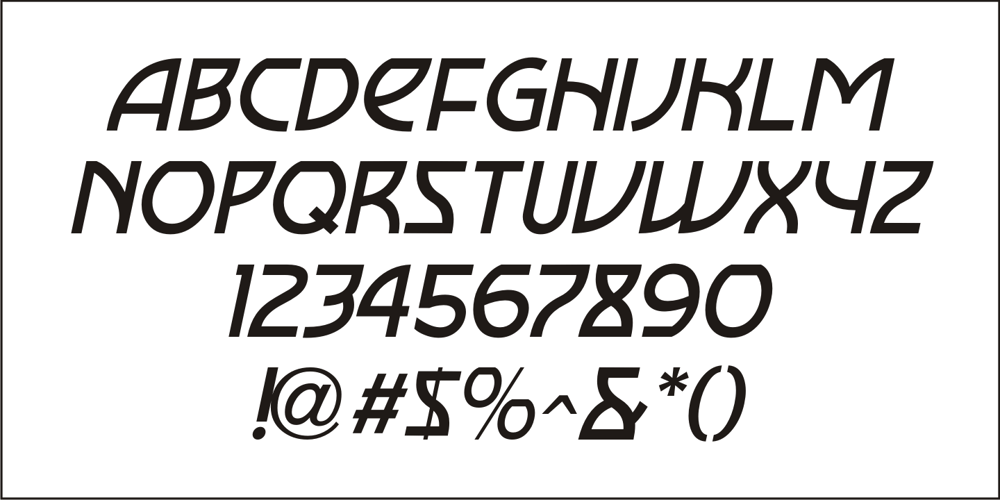
Retail Packaging JNL Font Family was designed by Jeff Levine and published by Jeff Levine. Retail Packaging JNL contains 2 styles and family package options. The retail storage box for a vintage metal numbering stamp manufactured by the American Numbering Machine Company had its brand name hand lettered in an Art Nouveau style that most likely went back to the 1920s, as the company was in existence from 1908 to around 1971. Numbering machines were used in offices, schools, libraries, and anywhere a series of numbers needed to be marked onto printed items. Similar to what was called a ‘crash numberer’ used in letterpress shops, the machines could be set to do a run of digits [for example: 4000, 4001, 4002] or repeat numbers for forms used as carbon copies. As computers took over most forms of printing, the use of numbering machines dwindled, but they are still available. The American Numbering Machine Company was one of several Brooklyn, New York companies that specialized in the manufacture of these machines. Retail Packaging JNL replicates the lettering from their packaging, and is available in both regular and oblique versions.